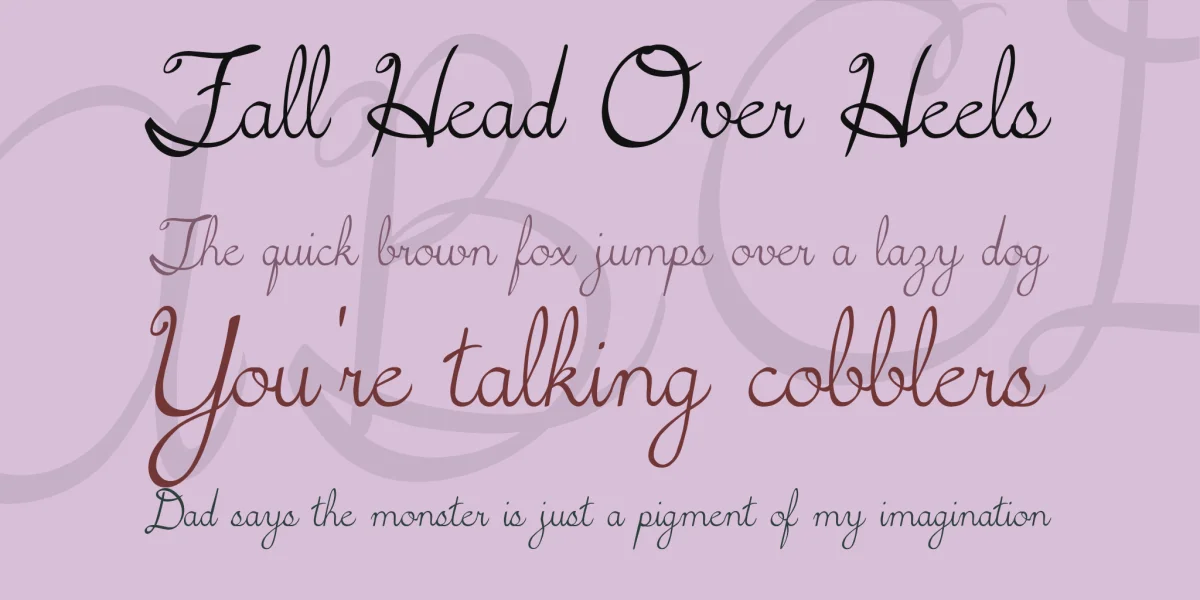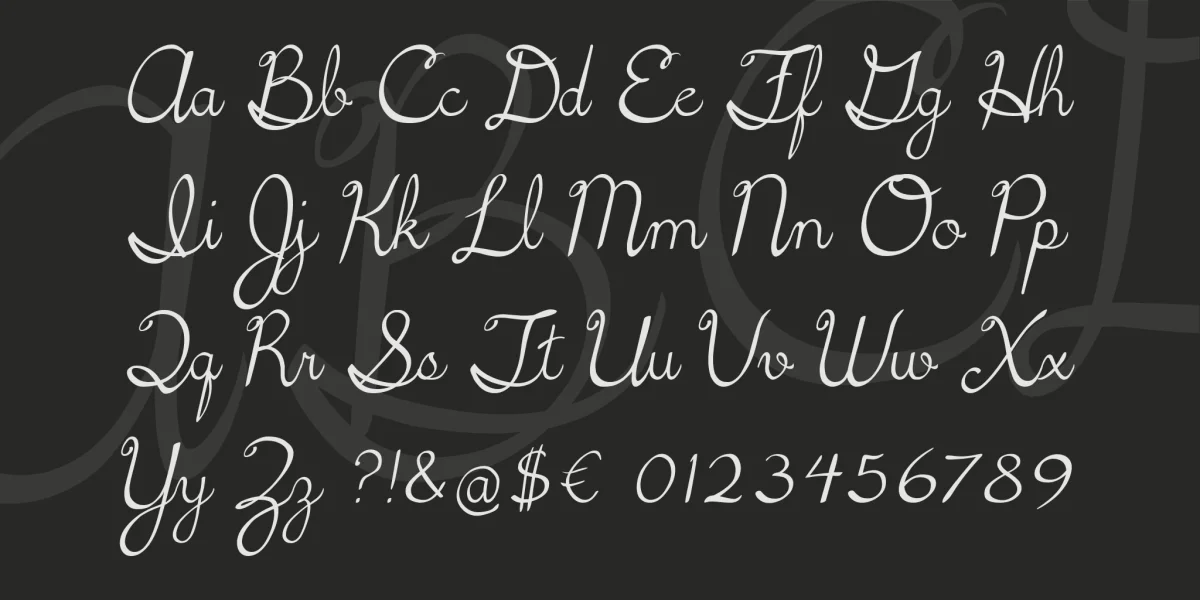
5th Grade Cursive was my first font. I made it during Christmas break in college out of a need for a font that faithfully reproduced the cursive I learned in elementary school.